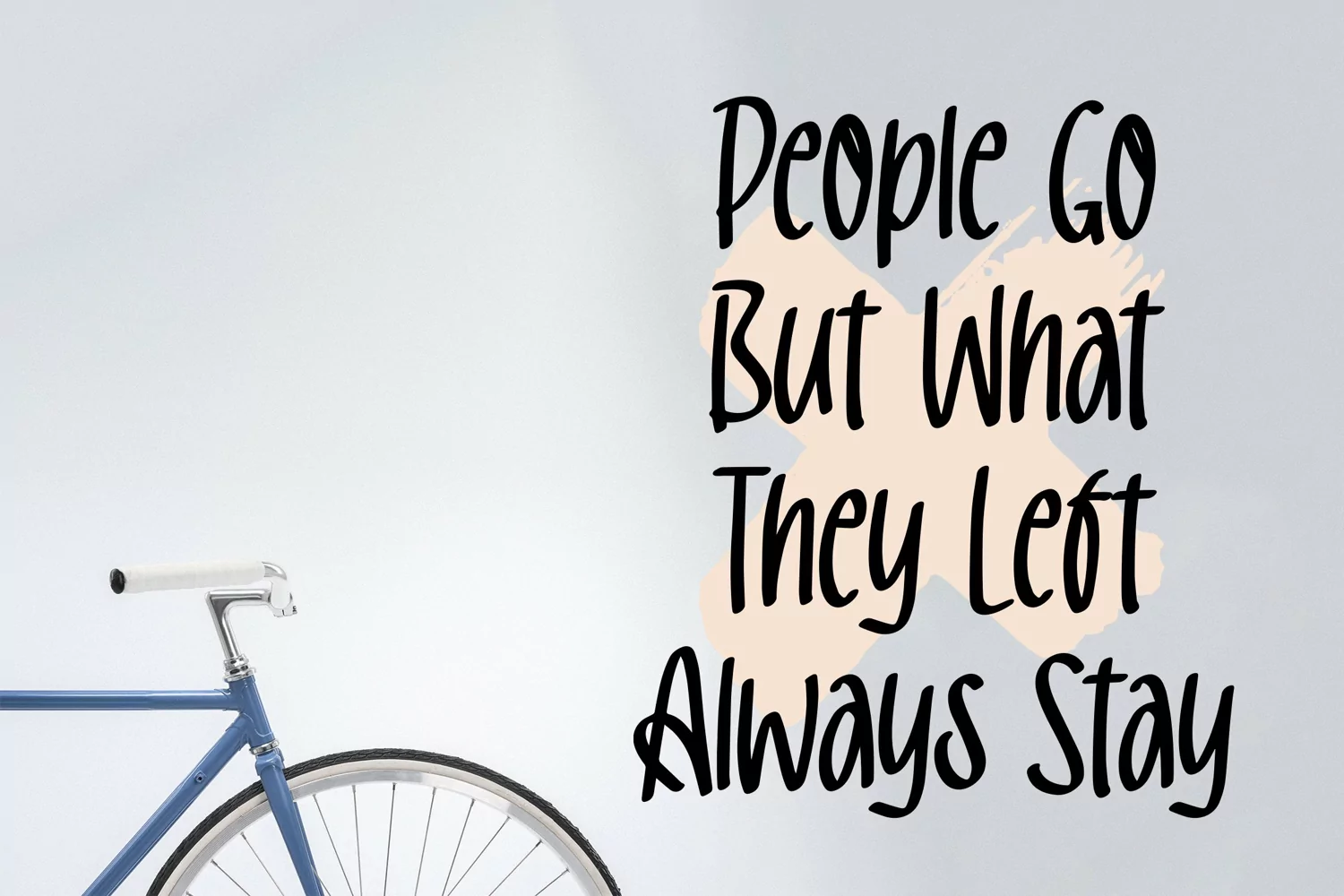
Garden Town - Lovely Handlettred Font that contain lowercase, uppercase, symbol, and also support multi language. There’s a lot ligatures in this font. This Font also comes with ligatures, alternates and many more. this font suitable for fashion, branding, catalog and other design what you want.
Garden Town